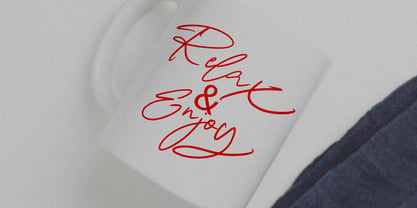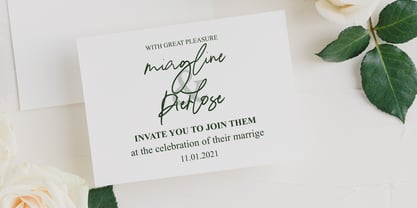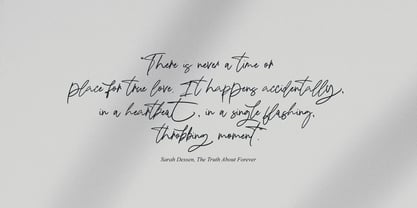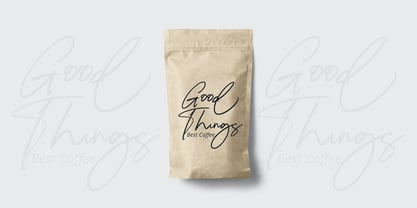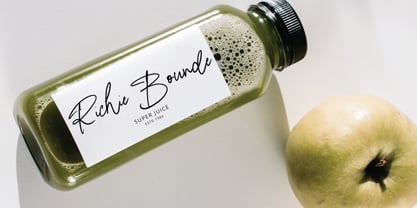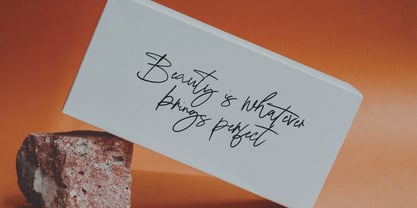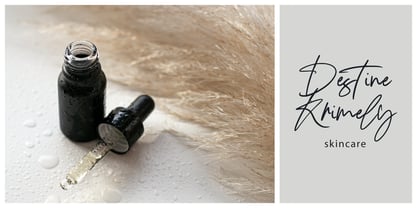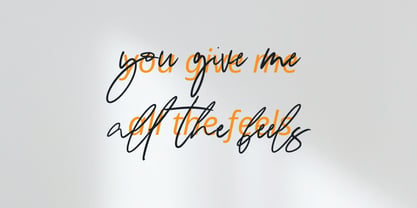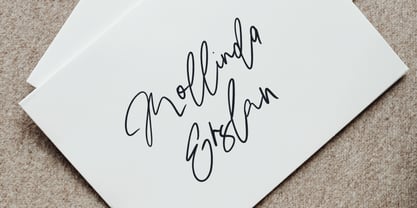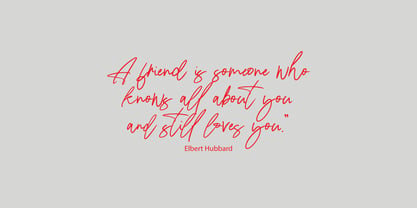
Maligo Signature
por Tebaltipis Studio
A família de fontes Maligo Signature foi desenhada por Dzulka Elfira e publicada pela Tebaltipis Studio. Maligo Signature contém 1 estilos. Saiba mais sobre esta família
Maligo Signature with a handmade Signature style, decorative characters and a dancing baseline! So beautiful on invitation like greeting cards, branding materials, business cards, quotes, posters, and more!!
Maligo Signature come with 250+ glyphs. The alternative characters were divided into several Open Type features such as Swash, Stylistic Sets, Stylistic Alternates, and Ligature. The Open Type features can be accessed by using Open Type savvy programs such as Adobe Illustrator, Adobe InDesign, Adobe Photoshop Corel Draw X version, And Microsoft Word. And this Font has given PUA unicode (specially coded fonts). so that all the alternate characters can easily be accessed in full by a craftsman or designer.
Designers: Dzulka Elfira
Fundição: Tebaltipis Studio